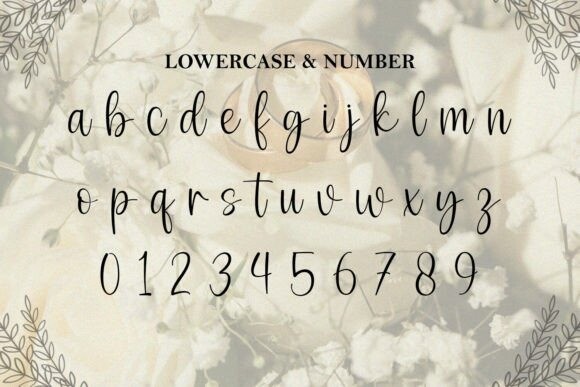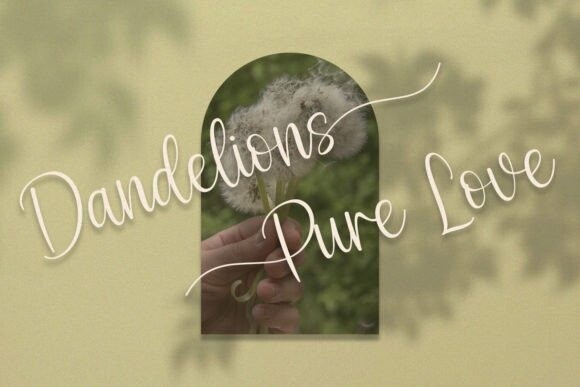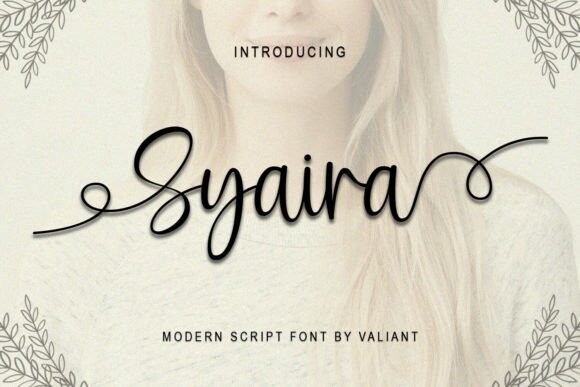
Syaira Font
Syaira Font a simple, handwritten font that exudes warmth and charm. With cute and elegant stylistic traits, Syaira is perfect for wedding invitations, greeting cards, or design projects that show a sense of fun. This font script effortlessly blends elegance with a touch of fun, making it a great choice for those who want their designs to stand out in a crowd! Experience this creative font with this friendly and engaging design.